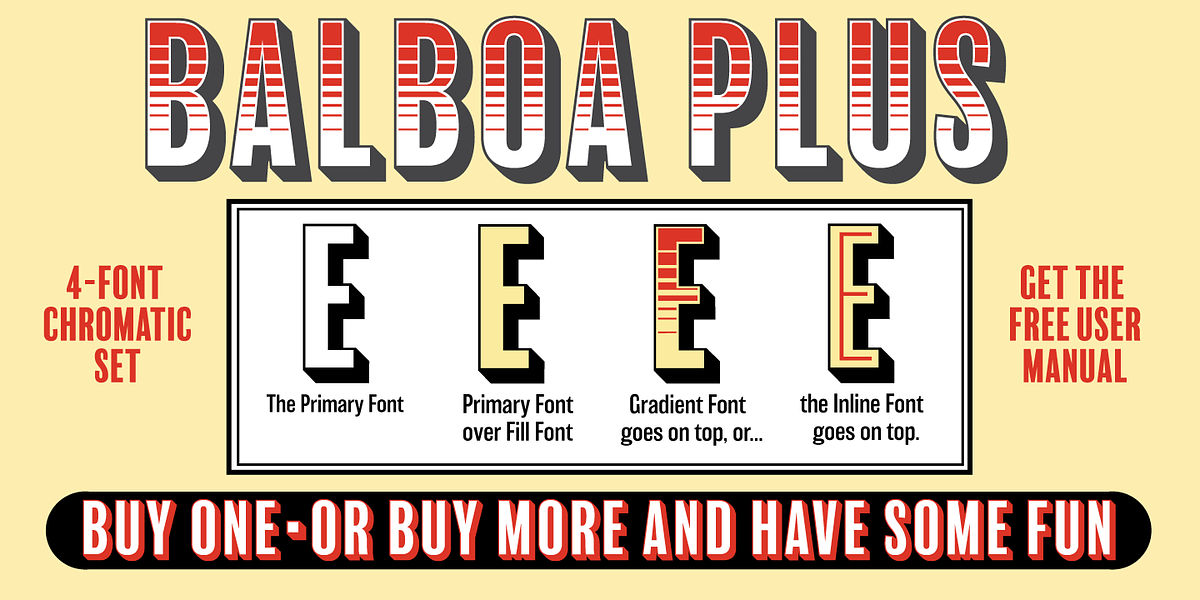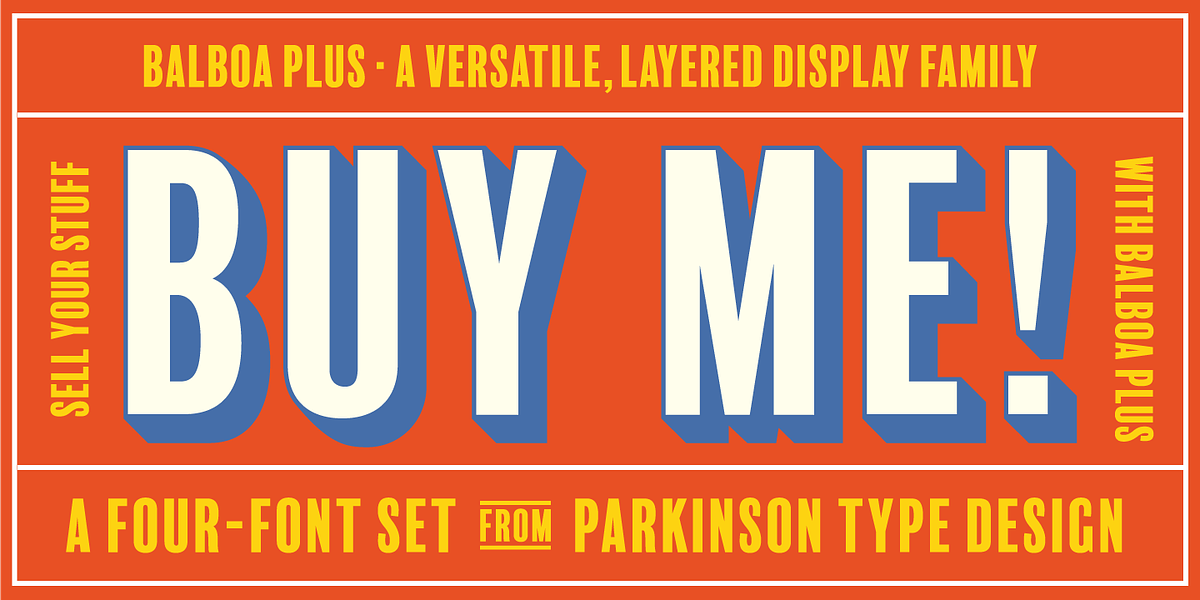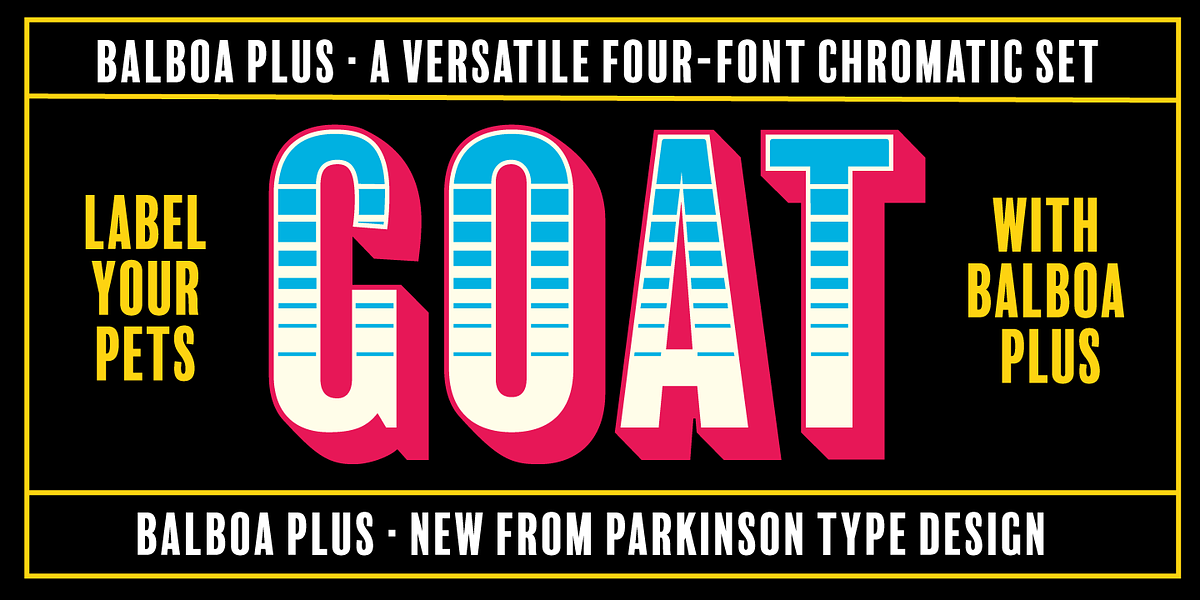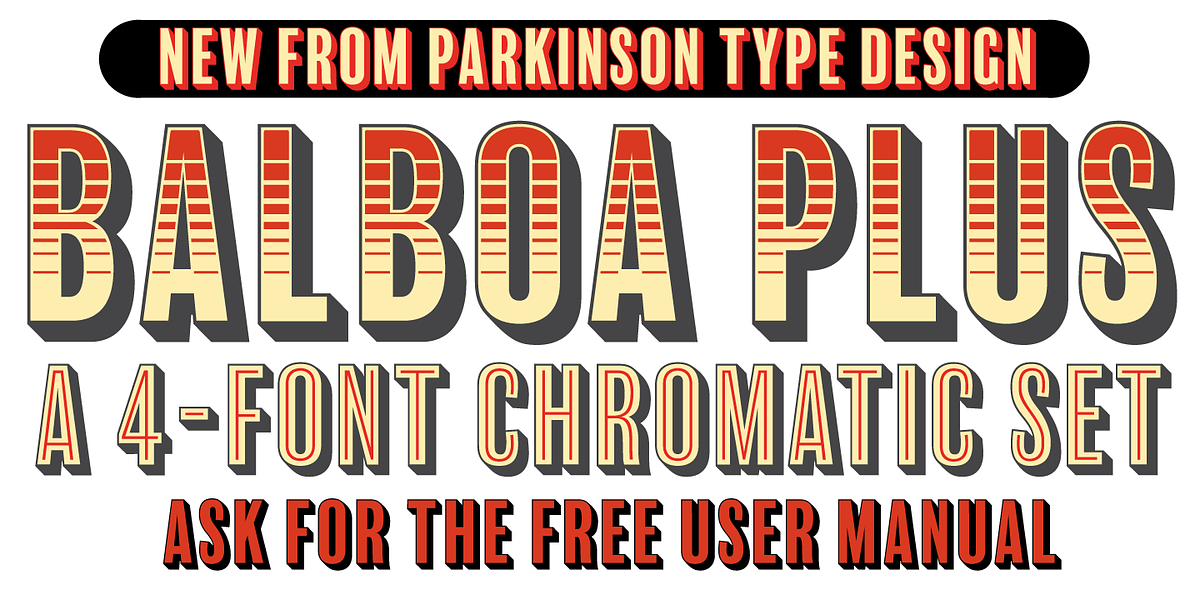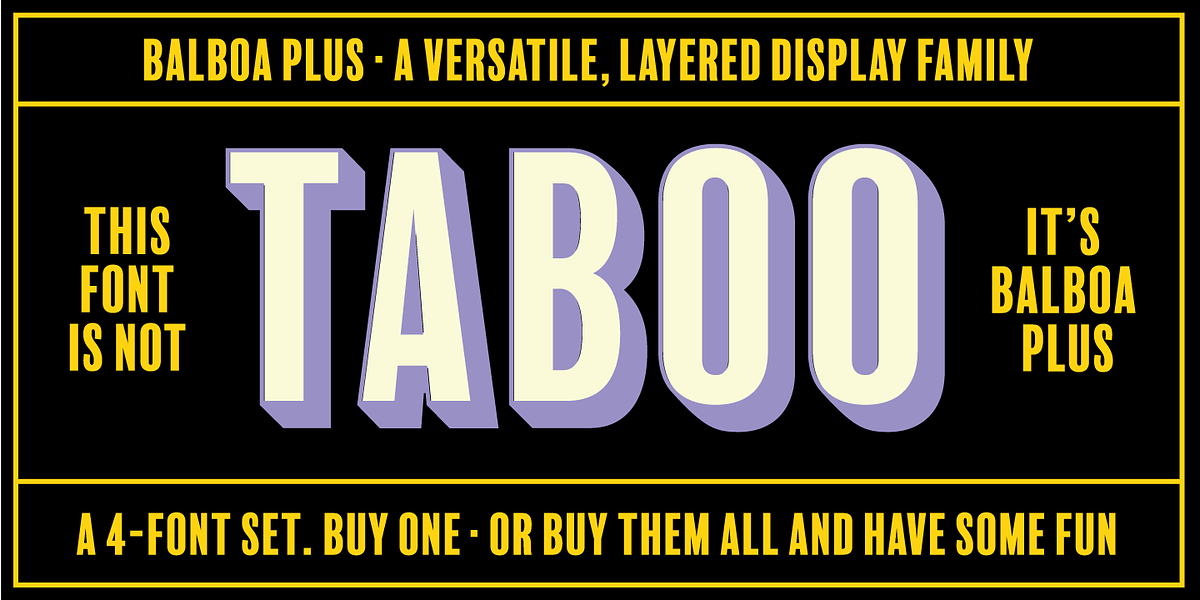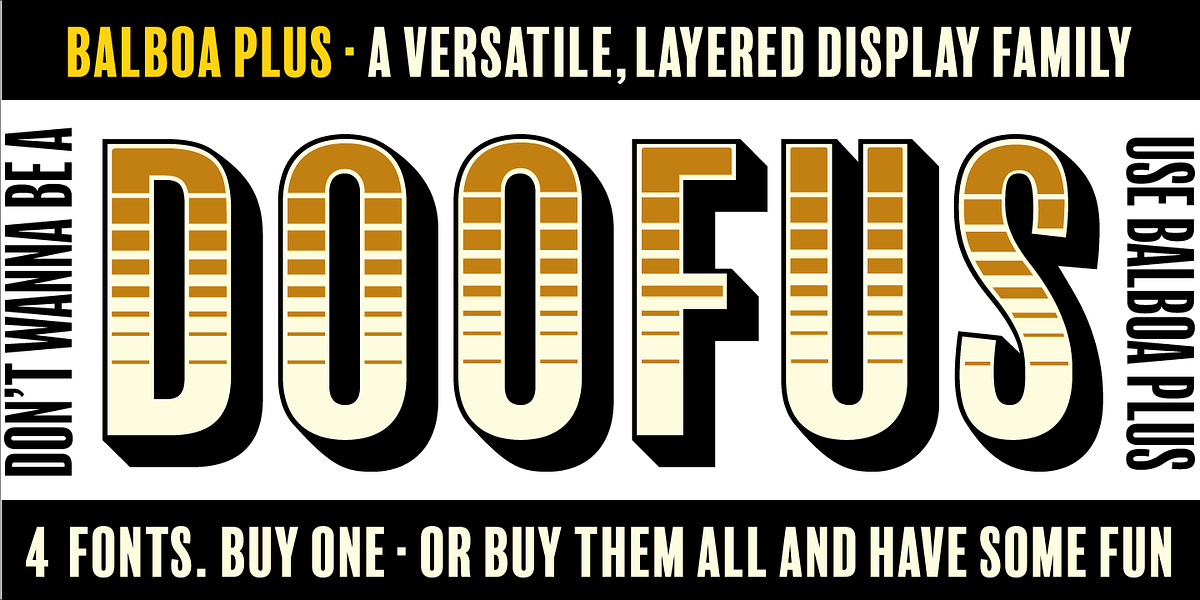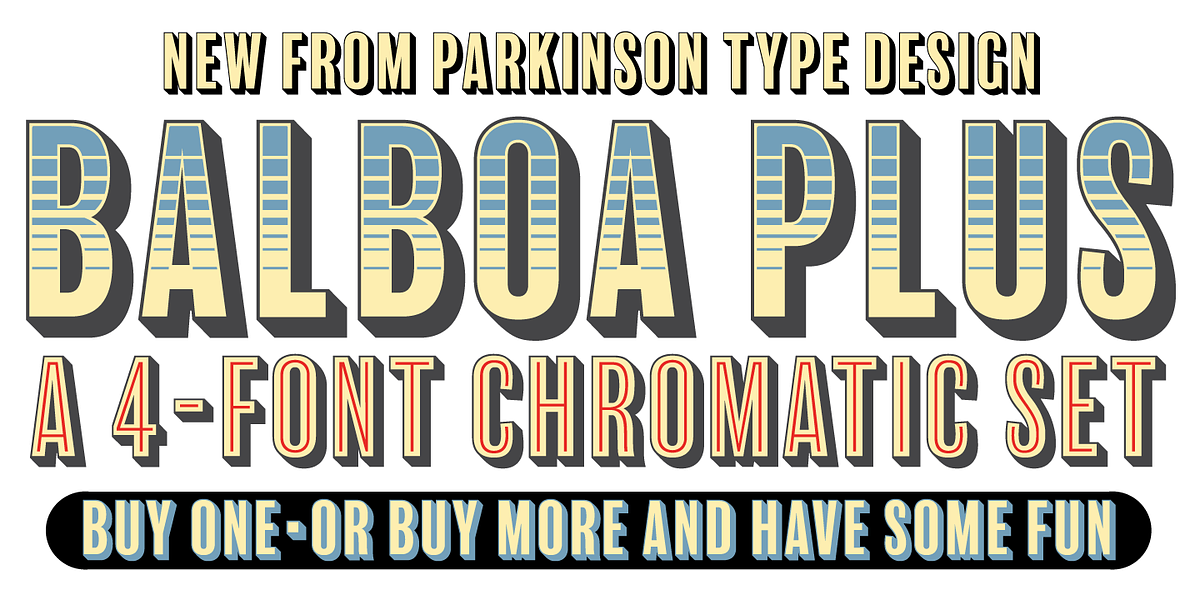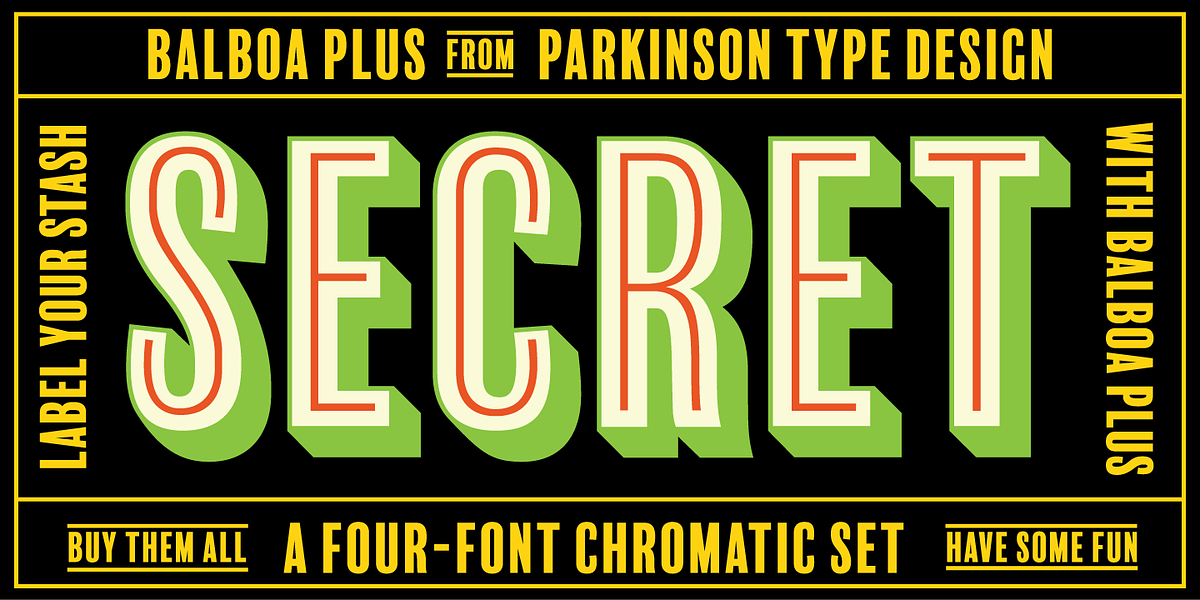
Balboa Plus
Balboa Plus is a multi-layered geometric sans serif typeface designed for display purposes. It consists of four distinct font layers: the Primary (main) Font, Fill, Inline, and Gradient. The Fill layer sits behind the Primary Font to create a color trapping effect. The other layers enhance the visual complexity and depth of the typeface.